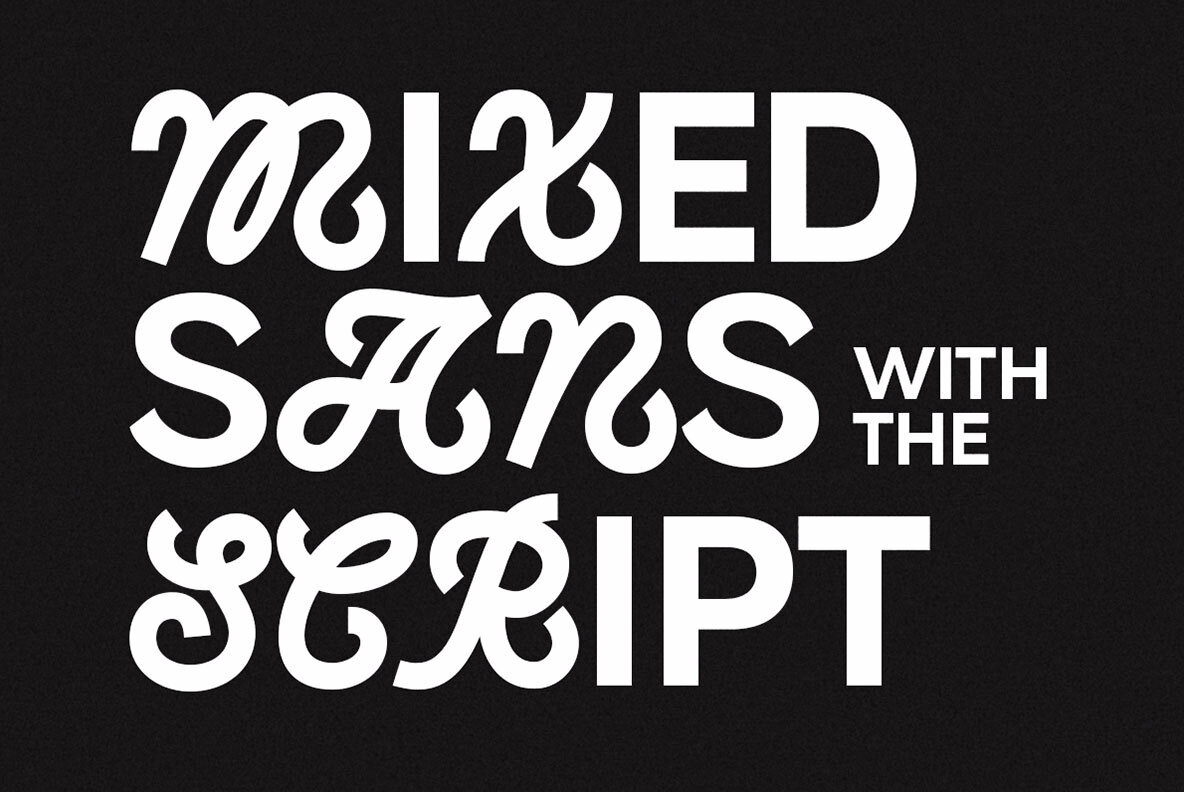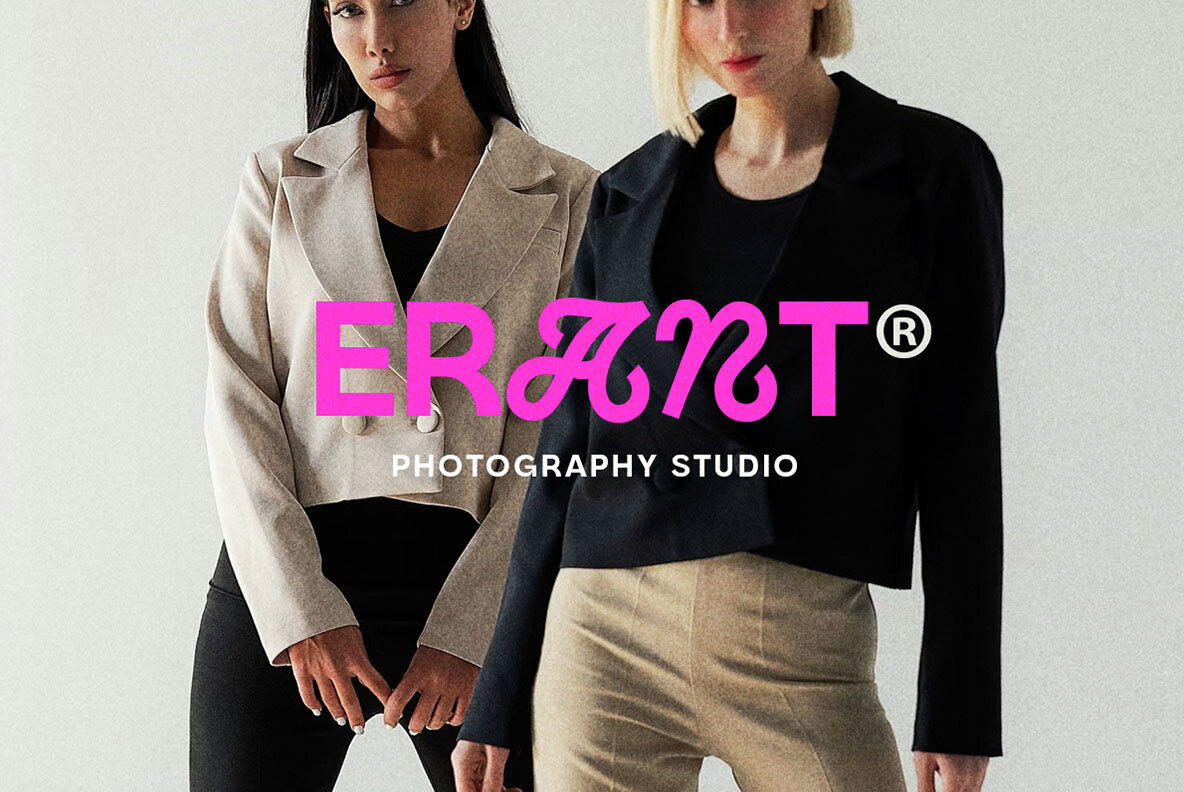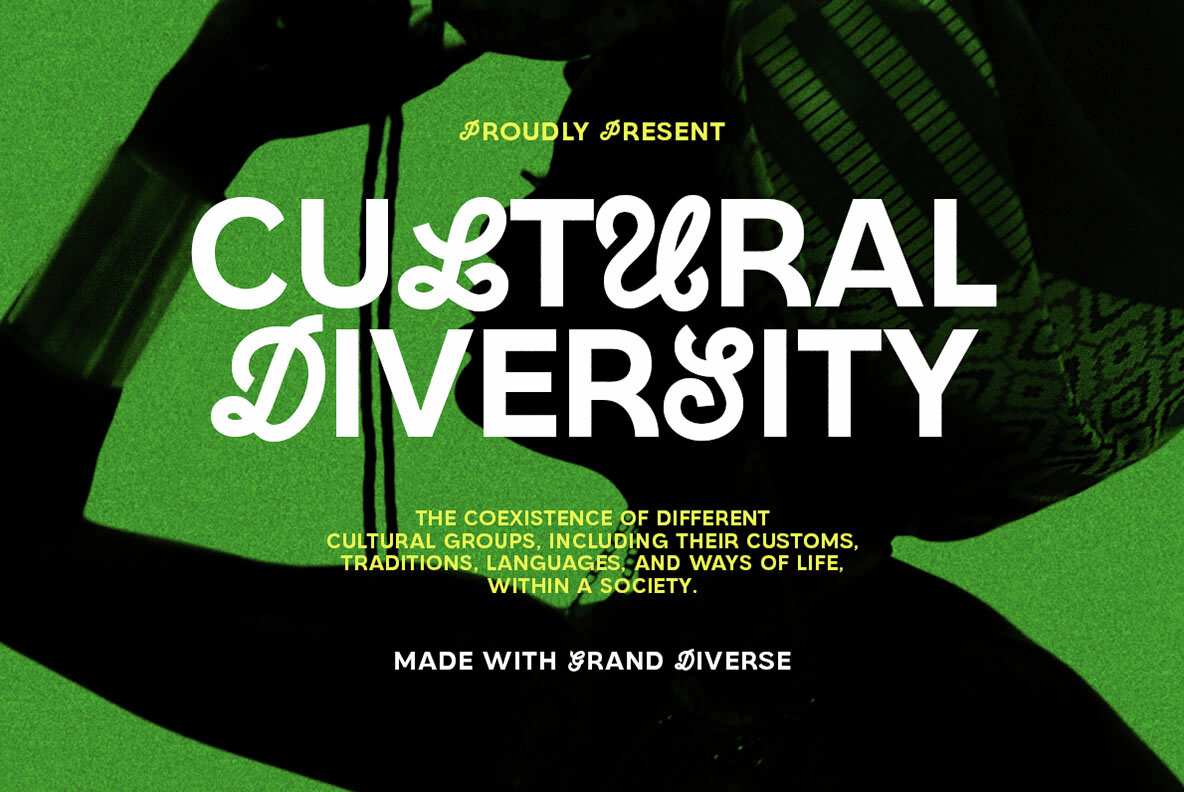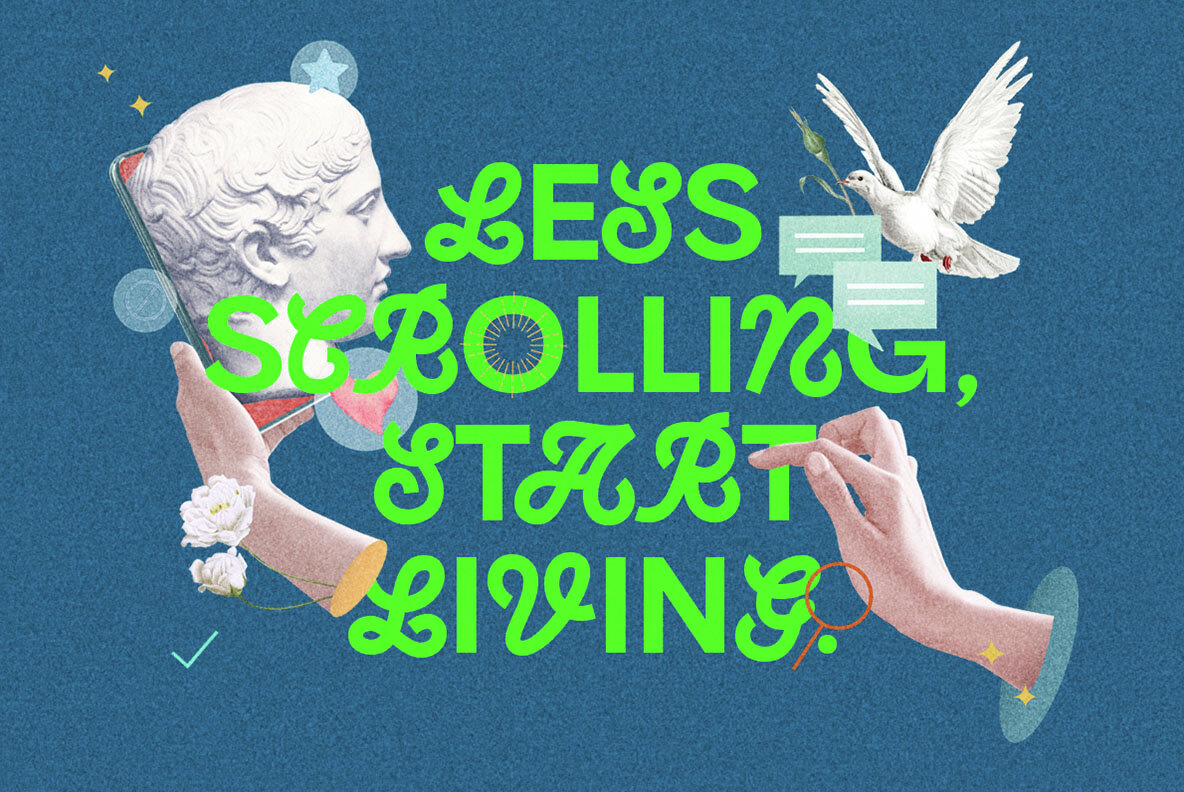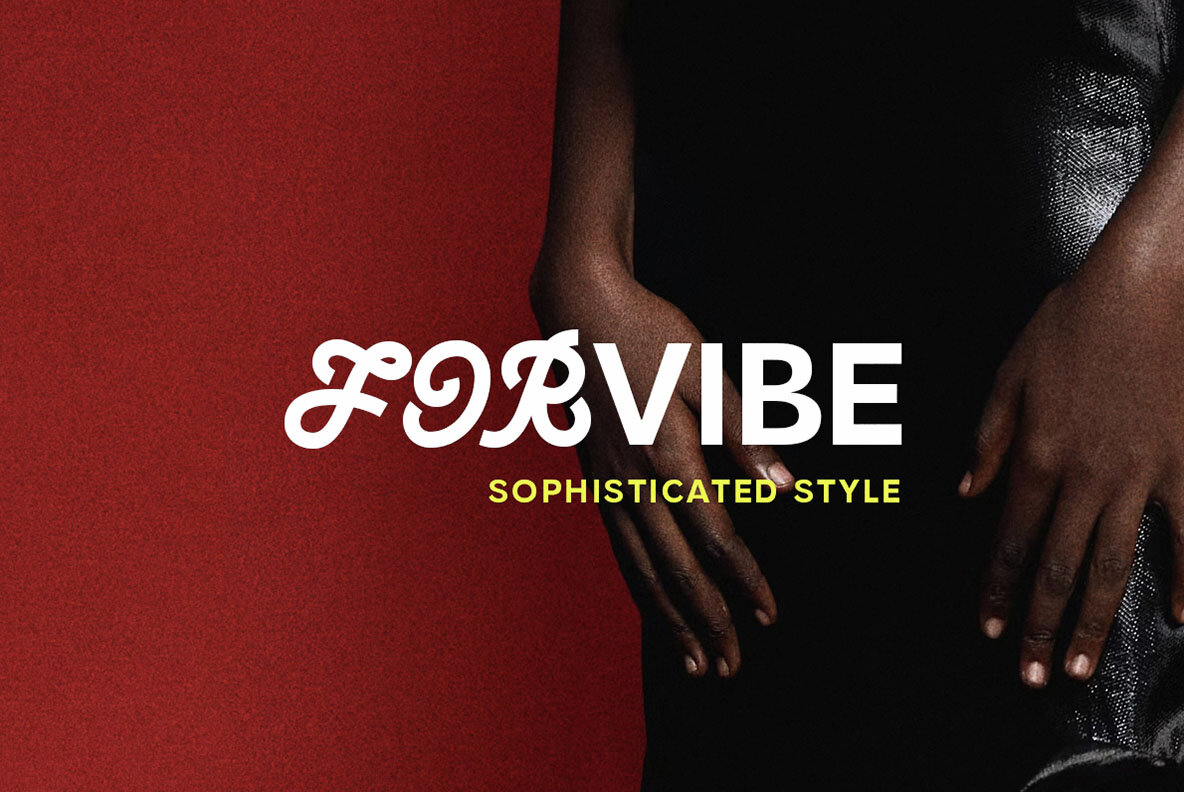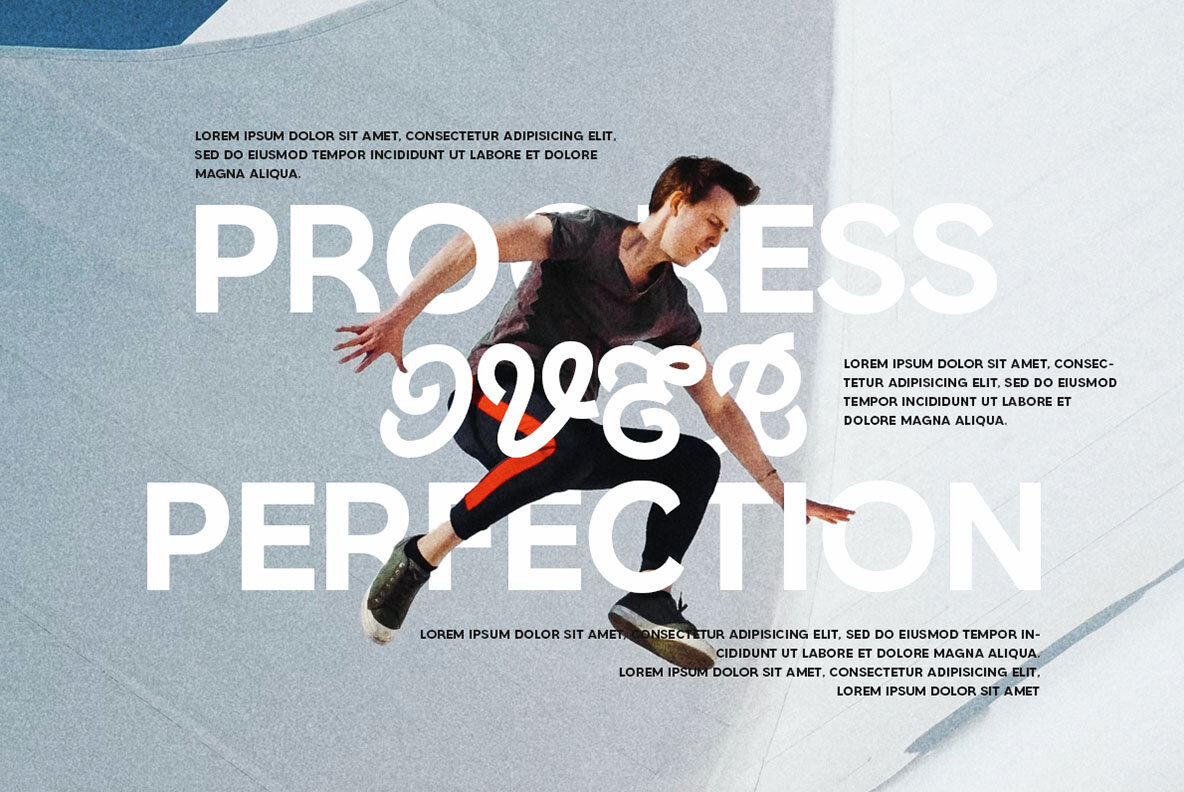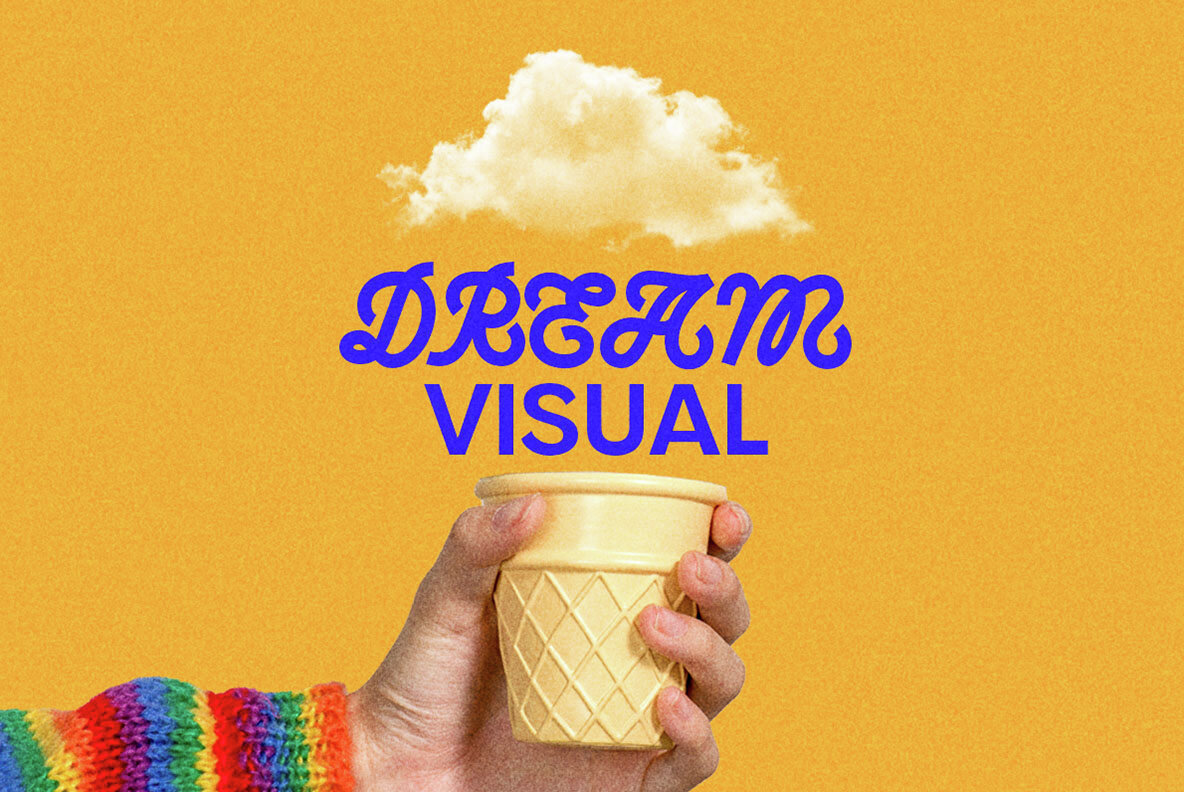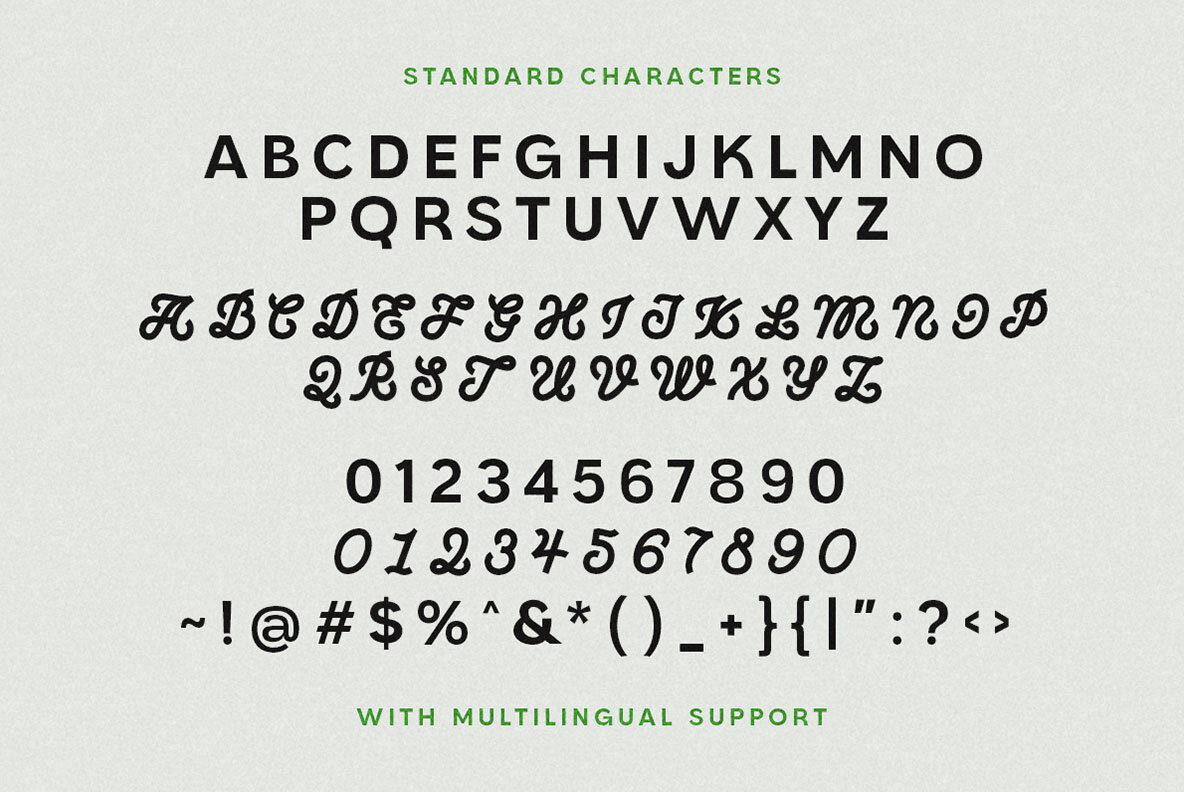
Grand Diverse Font
Grand Diverse Regular
Grand Diverse is a bold and experimental mixed-style font that combines elegant curves with geometric forms, offering a unique and versatile aesthetic. Perfect for creative projects like branding, headlines, posters, and editorial designs, its modern-vintage vibe makes it ideal for adding a distinctive and artistic touch. Grand Diverse shines in mix-and-match layouts, delivering a balance of sophistication and playfulness that captures attention effortlessly. Features : We highly recommend using a program that supports OpenType features and Glyphs panels like many of Adobe apps and Corel Draw, so you can see and access all Glyph variations.